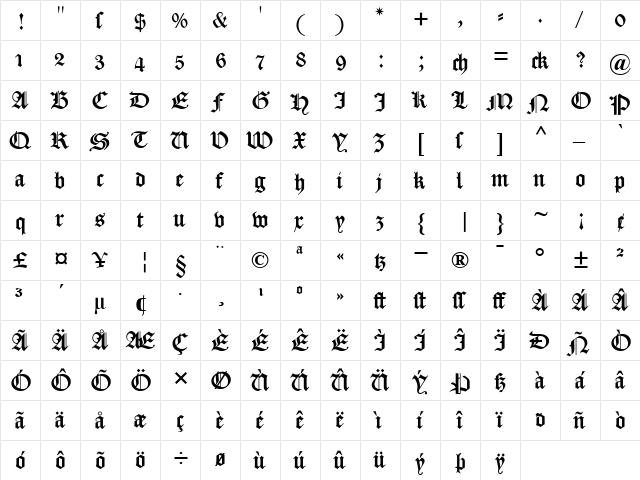
DS CaslonGotischOsF Regular
| Foundry | by Typographer Mediengestaltung |
| Designer | William Caslon (1692-1766) |
Design Context for DS CaslonGotischOsF Typeface
DS CaslonGotischOsF is a composed and adaptable typeface that performs quietly and consistently across a wide range of design contexts.